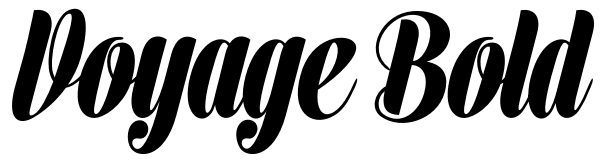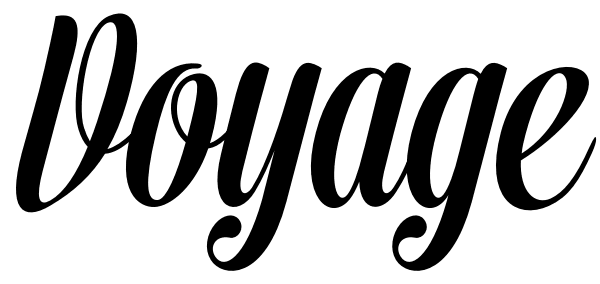
Voyage
Voyage is a smooth and friendly vintage script family of two weights and ornament sets. Voyage is packed with alternate characters and OpenType features to allow you create customized headlines. To activate the alternates click on Swash, Contextual...
Voyage Bold
Voyage Ornaments
Voyage